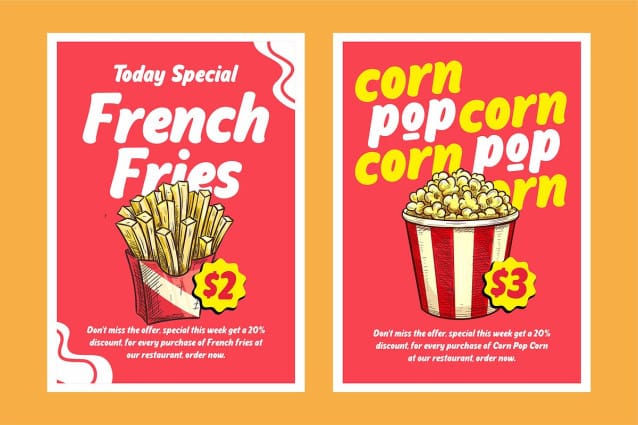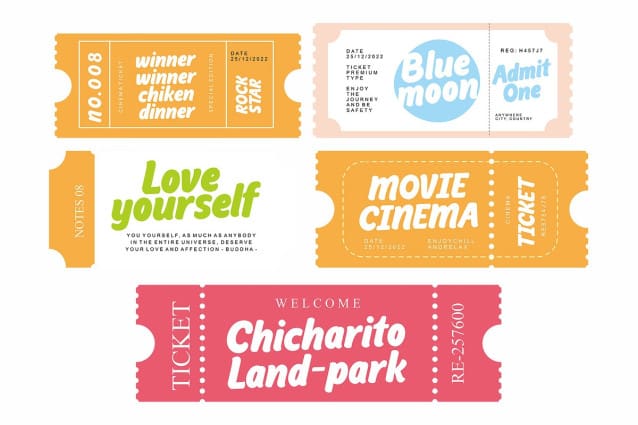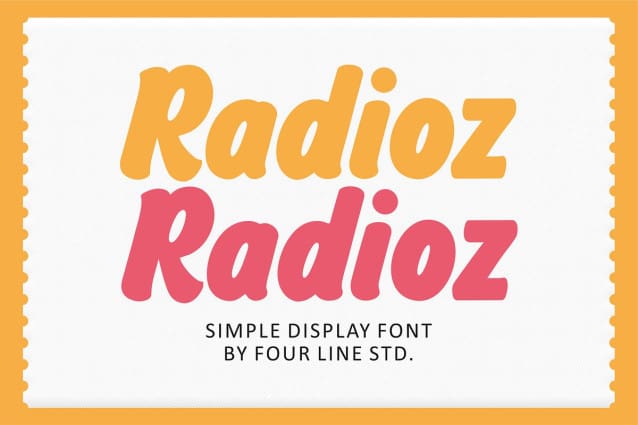
Radioz Playful Font
Radioz Playful Font is engineered with simple precision to ensure every letter is crystal clear, making your message effortlessly readable. It’s a font that doesn’t shout but leaves a lasting impression. Radioz Font adapts to your creative needs seamlessly. Whether you’re crafting a logo, designing a poster, or working on a digital project, it effortlessly blends into your vision.